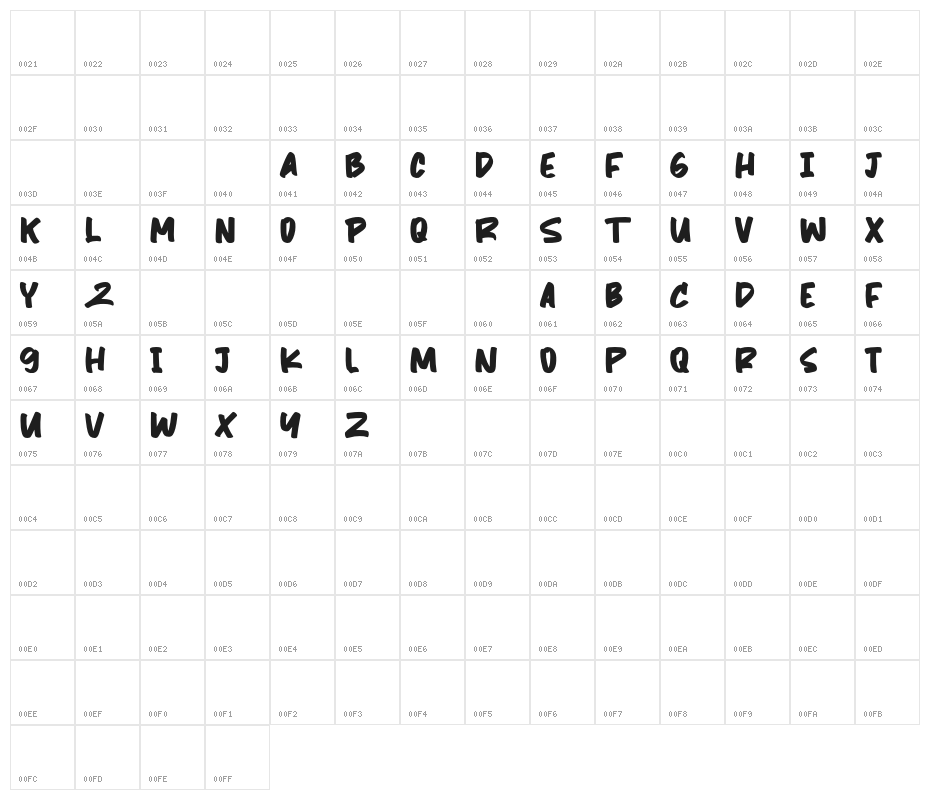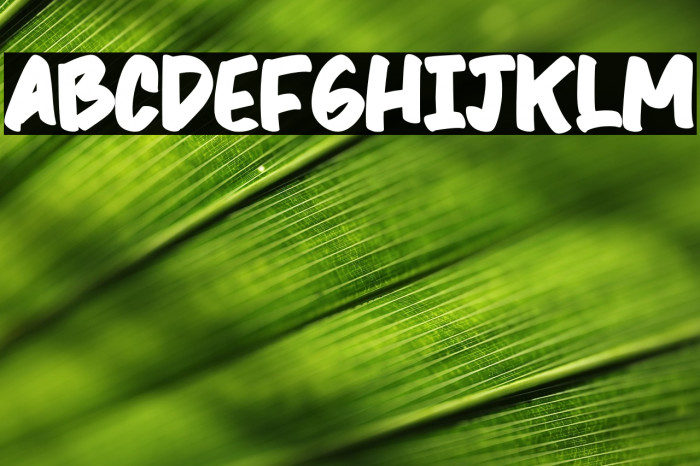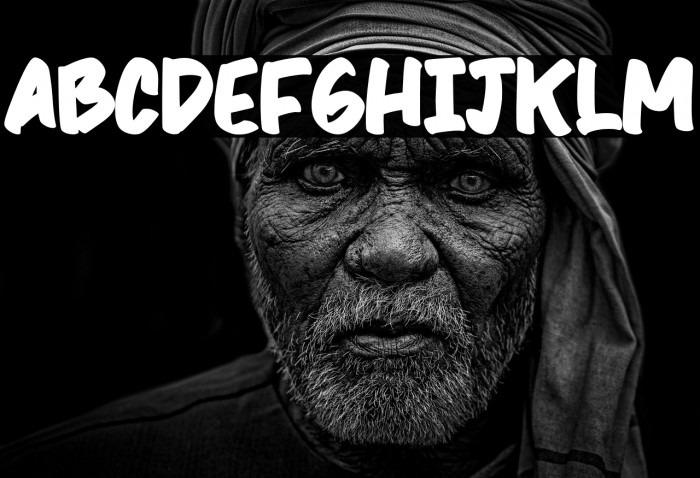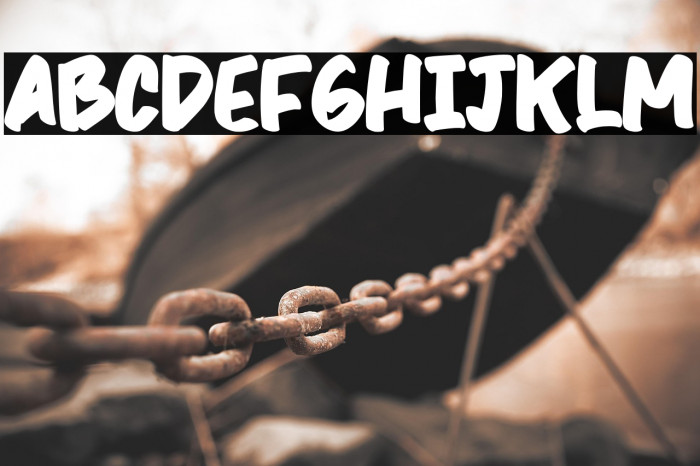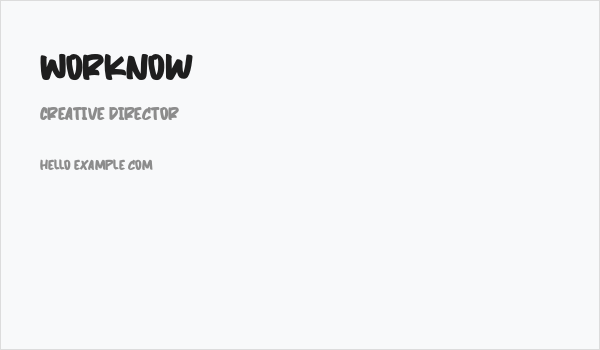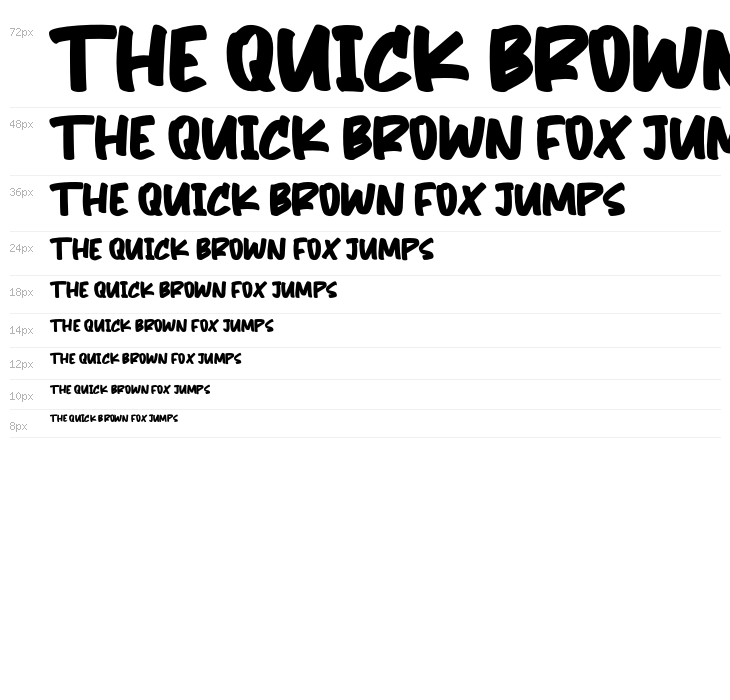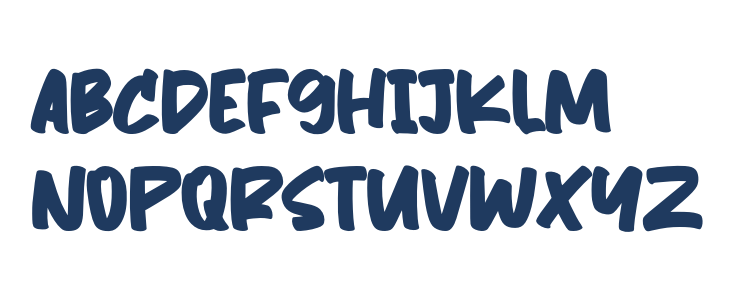
Worknow Font
Worknow Description
This font features a bold and dynamic style with a handwritten appearance. The letters are thick and rounded, giving a playful and energetic feel. The strokes are consistent in width, contributing to a cohesive look across all characters. The uppercase and lowercase letters maintain a uniform height, enhancing readability. The numbers and special characters are designed with the same boldness, ensuring they stand out effectively. This font is ideal for projects that require a lively and informal touch.
| Overall Style | Playful |
| Proposed Projects | Perfect for posters, social media graphics, children's books, and branding materials that aim for a fun and approachable vibe. |